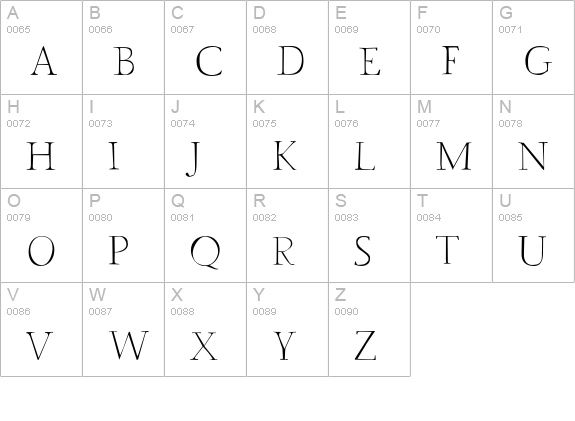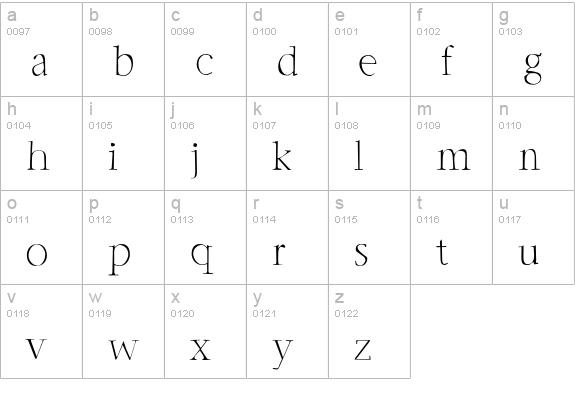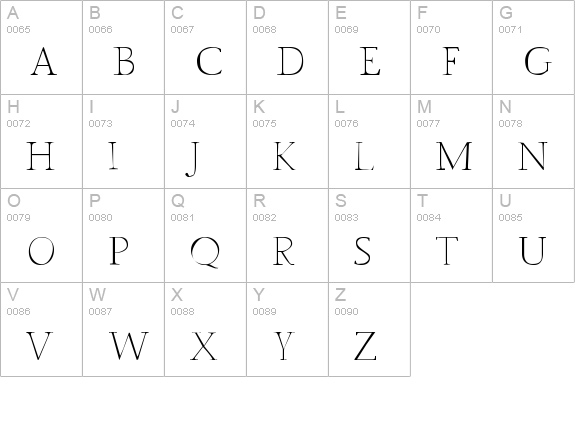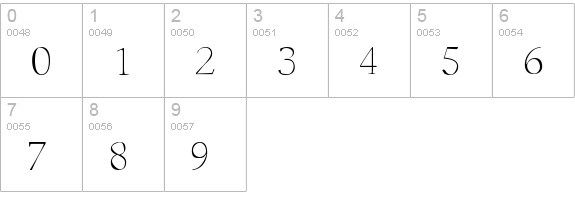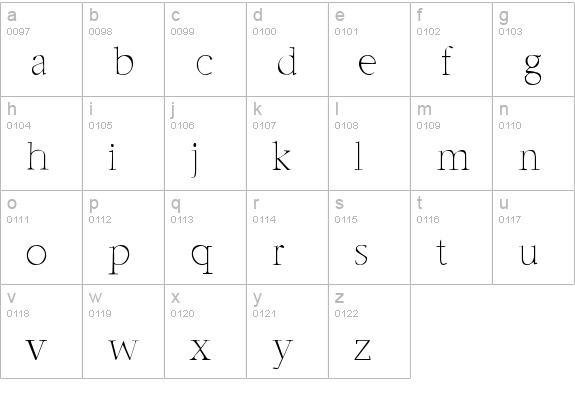
Godlike Font Details
Introducing Godlike font, a stunning and powerful typeface that exudes elegance and sophistication. With its divine curves and majestic presence, Godlike font is sure to make a bold statement in any design project. This font is perfect for adding a touch of luxury and grandeur to your creations. Best of all, Godlike font is available for free download at FontsMarket.com. You can easily access this exquisite font and elevate your designs with its regal charm. Don't miss out on the opportunity to enhance your projects with the majestic allure of Godlike font. Download it now and let your creativity shine!